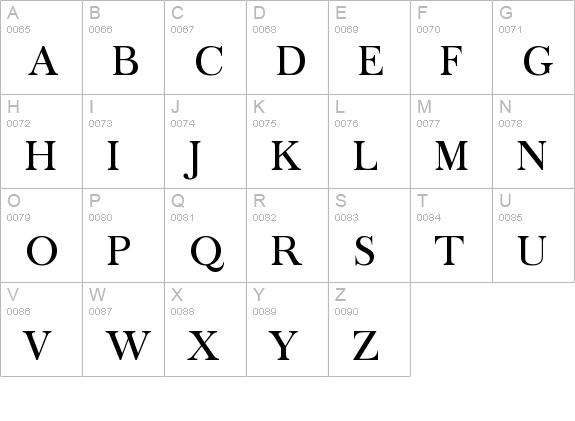
BaskerOldSerial-Medium-Regular is a balanced, medium-weight variant in the BaskerOldSerial typeface family \xE2\x80\x94 well suited to sub-headlines, navigation, and balanced editorial work.
BaskerOldSerial-Medium-Regular font is a classic and timeless typeface that exudes elegance and sophistication. With its medium weight and clear, easy-to-read letterforms, this font is perfect for a wide range of design projects, from invitations to branding materials. Best of all, BaskerOldSerial-Medium-Regular is available for free download at FontsMarket.com. This means you can elevate your designs with this beautiful font without having to spend a penny. Don't miss out on the opportunity to add this versatile and stylish typeface to your font library today!